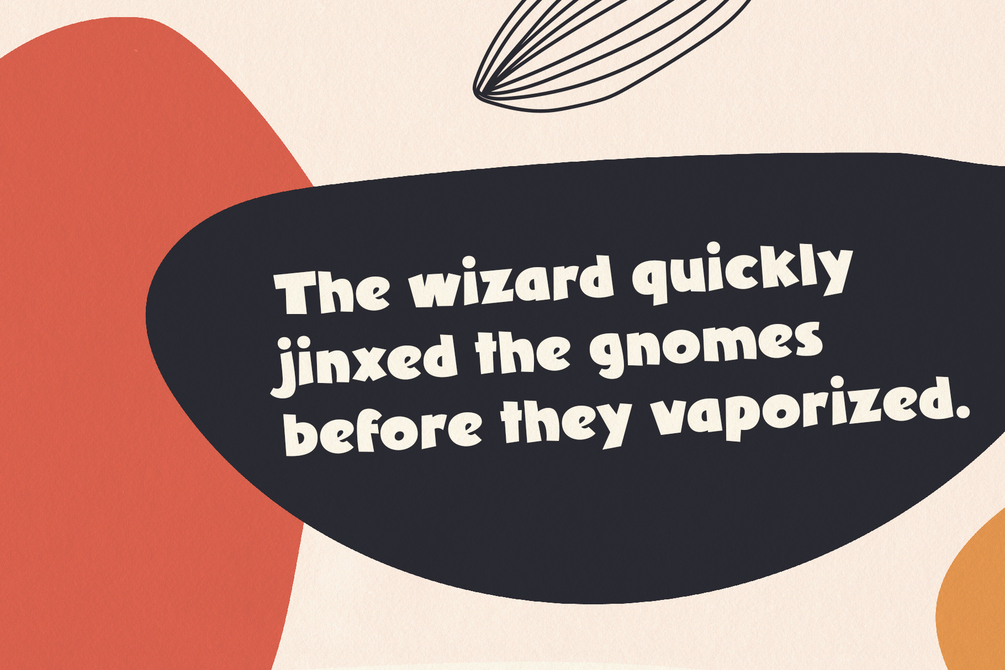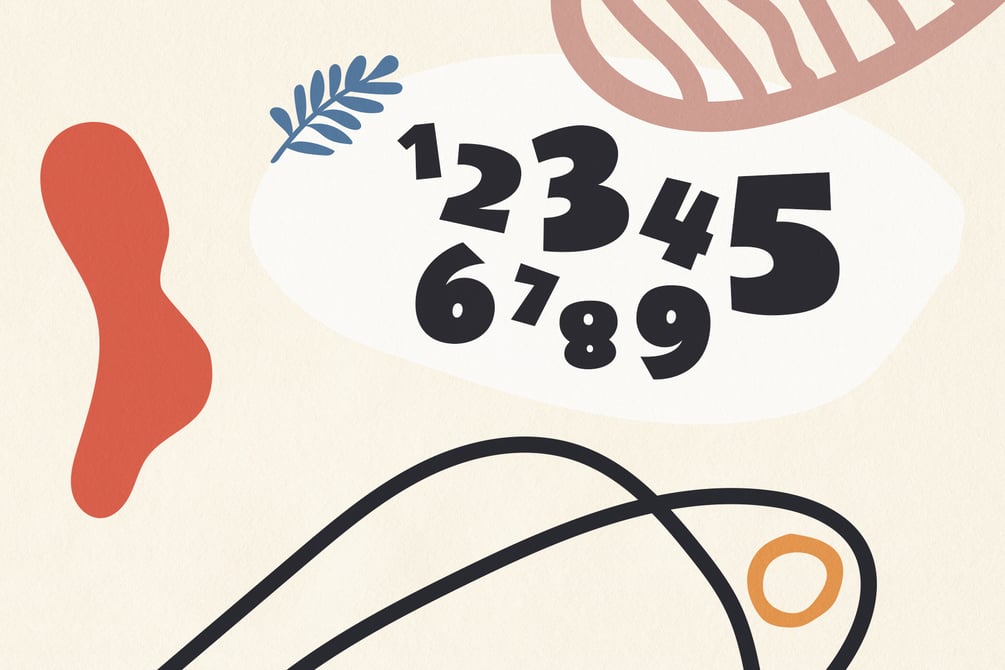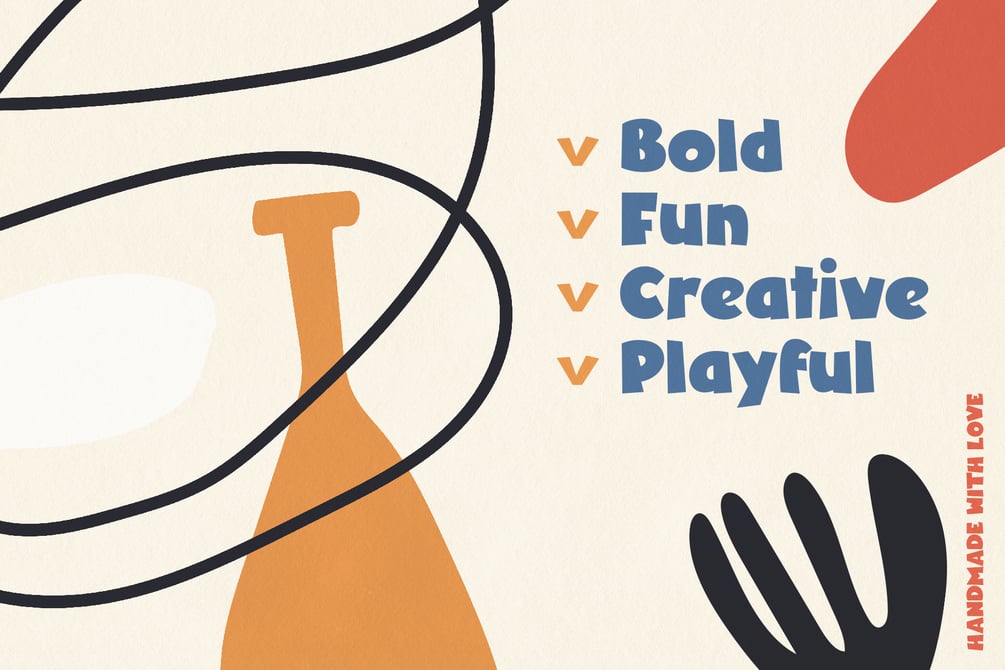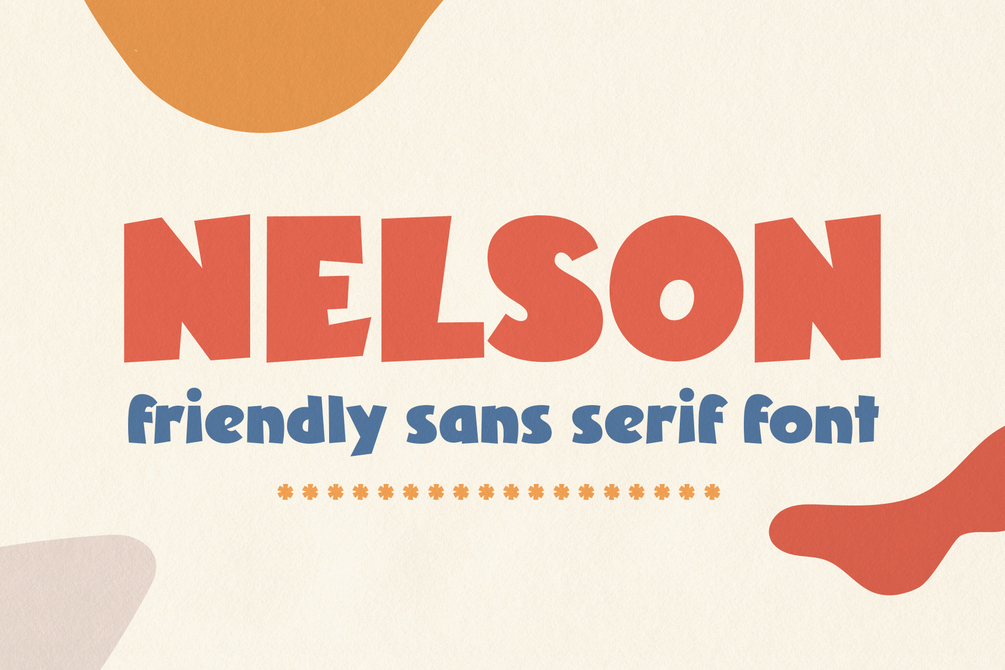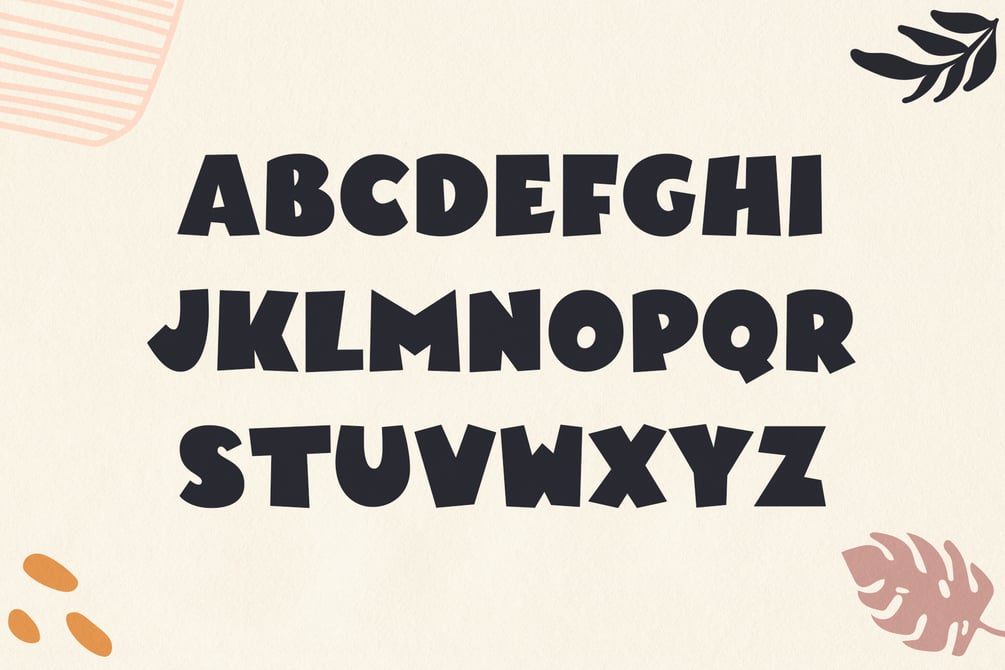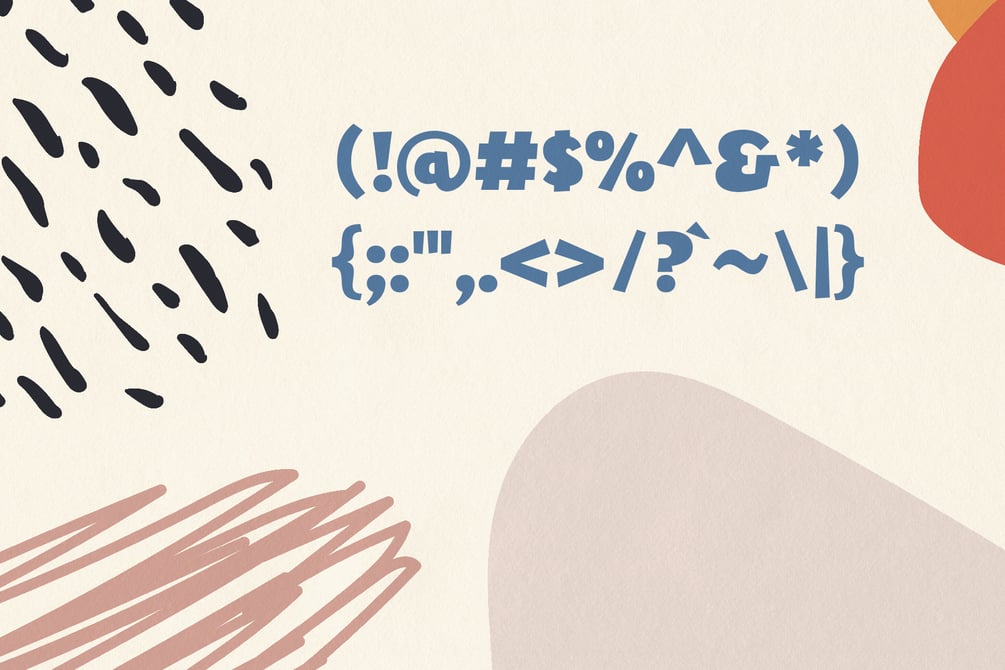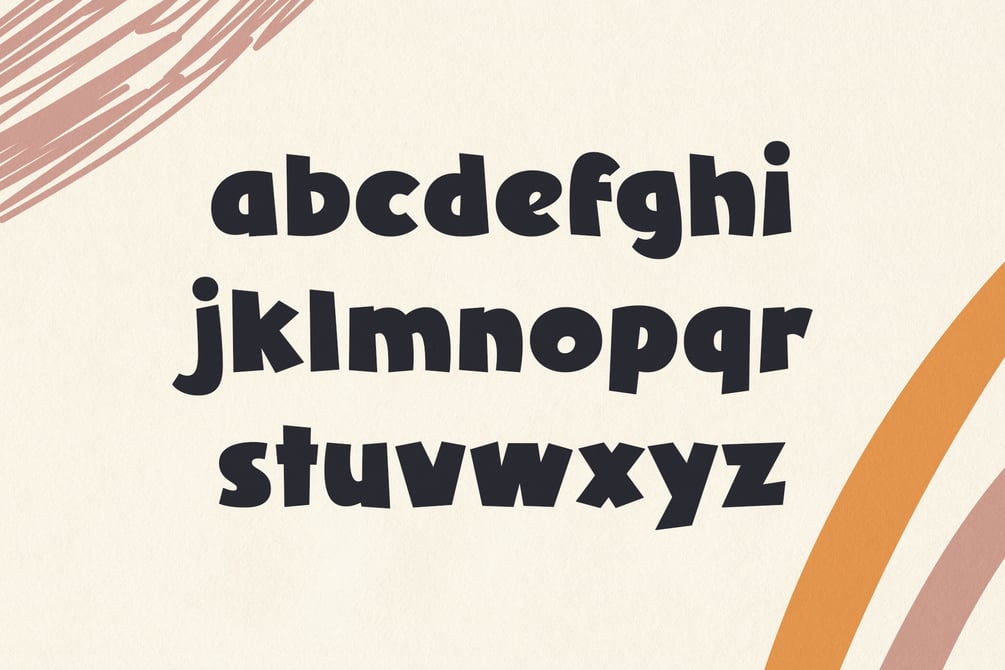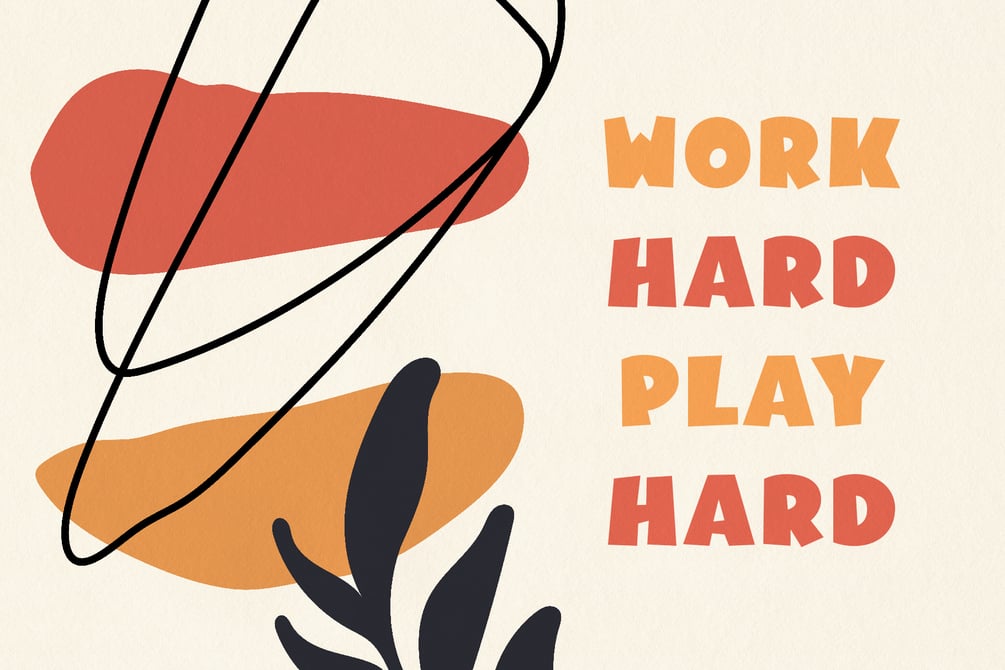
Nelson - Friendly Sans Serif Typeface
Introducing: Nelson! A bold typeface that is fun, playful, and laidback. Nelson will bring a smile to your face every time you use it.
Nelson is perfect for children books, greeting cards, signage, user interfaces, package design, branding, and much more. Its chubby clean letters looks simple, modern, and expressive. A must have for your digital asset toolkit.